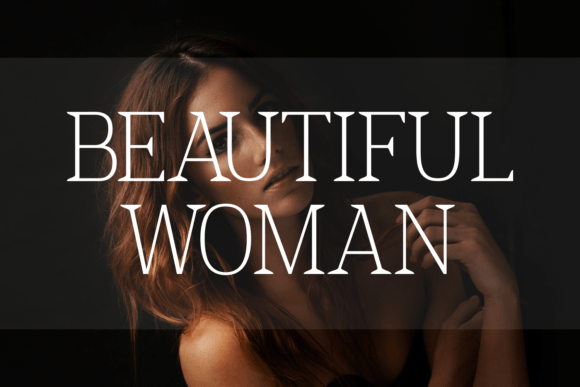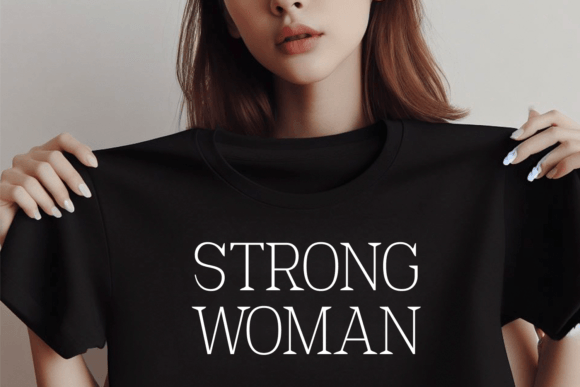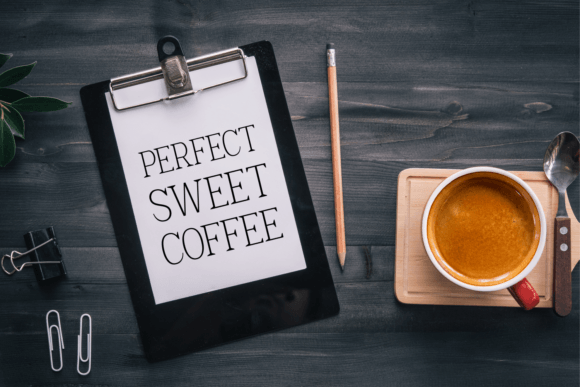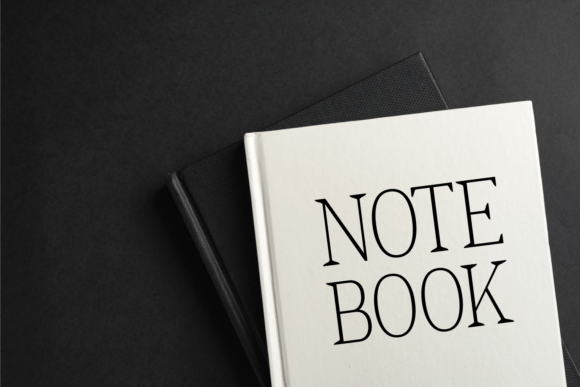
Introduction to Good Situation Font
Have you ever been stuck on a creative project, staring at a blank page, trying to find the perfect font to bring your vision to life? I know I have. As a designer, I’ve spent countless hours scouring through font libraries, searching for that one font that will elevate my design and make it truly special. And then, I found it – the Good Situation Font. This modern serif font is a game-changer, offering a perfect balance of elegance and modernity that’s sure to impress.
With its beautiful serifs and clean lines, the Good Situation Font is the perfect design resource for any creative project. Whether you’re working on a print or digital project, this font is sure to bring a touch of sophistication and refinement to your design. And the best part? It’s available for free download, making it an accessible and valuable tool for designers of all levels.
Key Features of Good Situation Font
- High-quality design resource suitable for various creative projects, including graphic design, digital art, and publishing.
- Comes with a transparent background, allowing for seamless integration with any design element.
- Features a unique, modern design with a mix of geometric and organic elements, setting it apart from more traditional fonts.
- Perfect for designers who want a versatile font that can be used for headings, body text, and even logos, thanks to its extensive character set and multiple weight options.
Honest Review: Good Situation Font
I recently had the opportunity to work with the Good Situation Font, and I must say it’s a fantastic addition to any design resource. This high-quality font is perfect for a wide range of creative projects, from branding and advertising to digital products and publications.
- ✨ Clean and modern design aesthetic that’s perfect for contemporary projects
- ✨ Transparent background, making it easy to work with on complex backgrounds
- ✨ Excellent legibility and readability, making it perfect for body text and headings
- ⚠️ Limited character set, which may not be suitable for projects requiring extensive typography
- ⚠️ Some users may find the font a bit too simplistic, lacking in expressiveness
Overall, I’m really impressed with the Good Situation Font. While it may have some limitations, its clean design and high quality make it a valuable addition to any design resource. I’d definitely recommend it for creative projects requiring a modern and professional look.
Introduction to Good Situation Font
Good Situation Font is a versatile and high-quality design resource that can elevate your creative project with its unique style. This font features a transparent background, making it ideal for use in various graphic design applications.
Tips for Getting the Most Out of Good Situation Font
To get the most out of Good Situation Font, experiment with different font sizes, colors, and combinations to find the perfect look for your project.
Common Use Cases for Good Situation Font
Good Situation Font is ideal for use in various creative projects, including:
- Business presentations and reports
- Print design and publishing